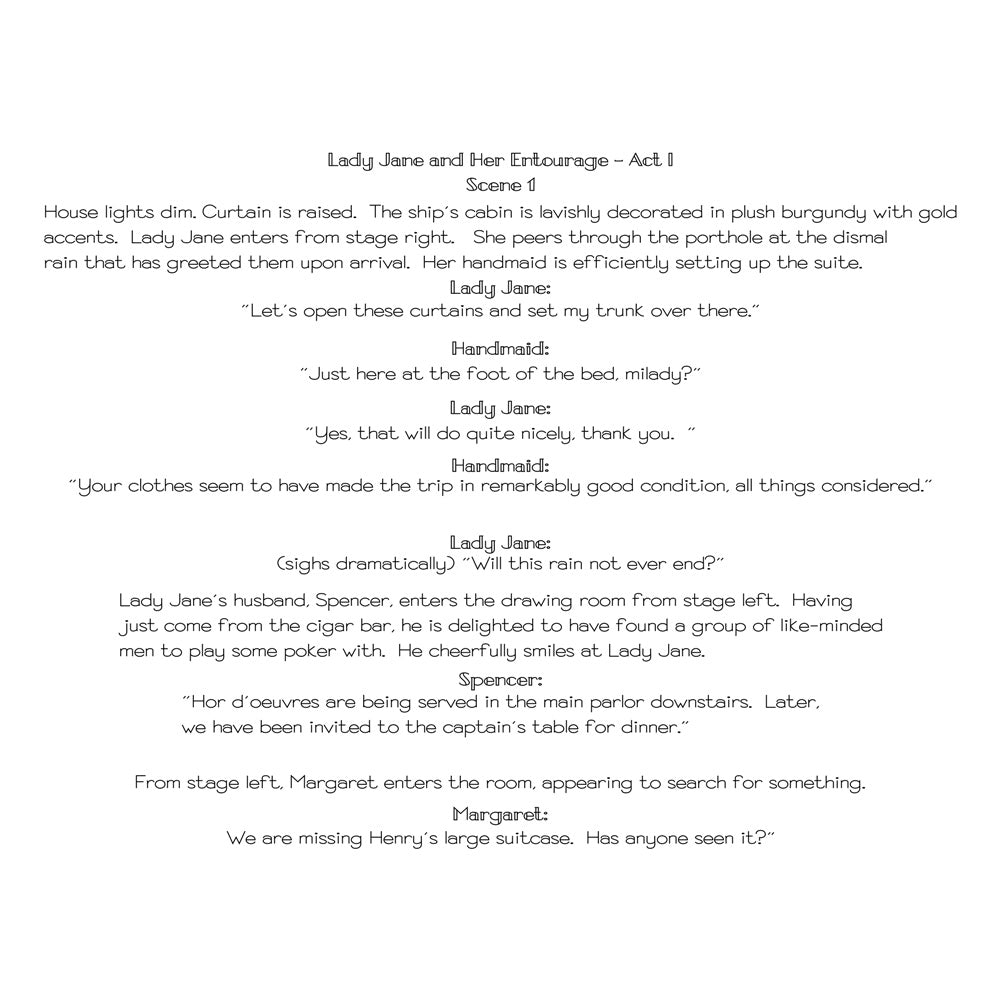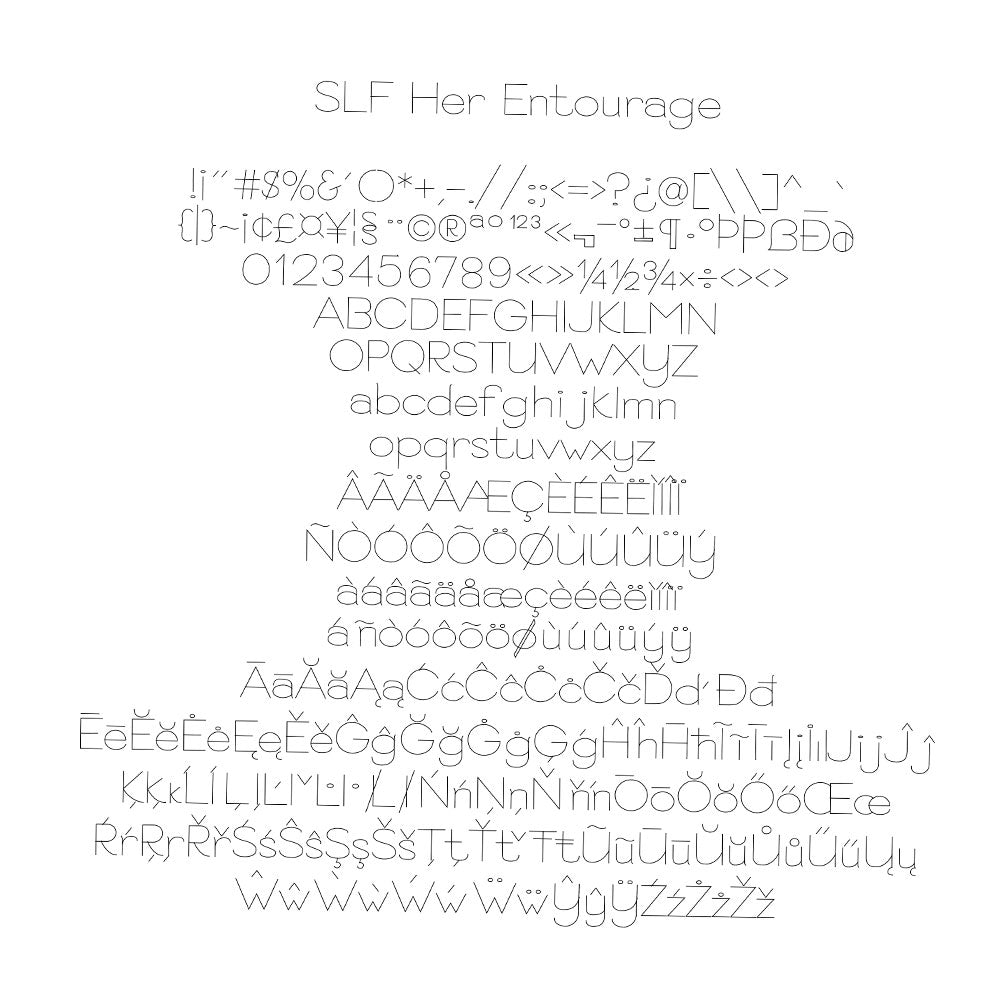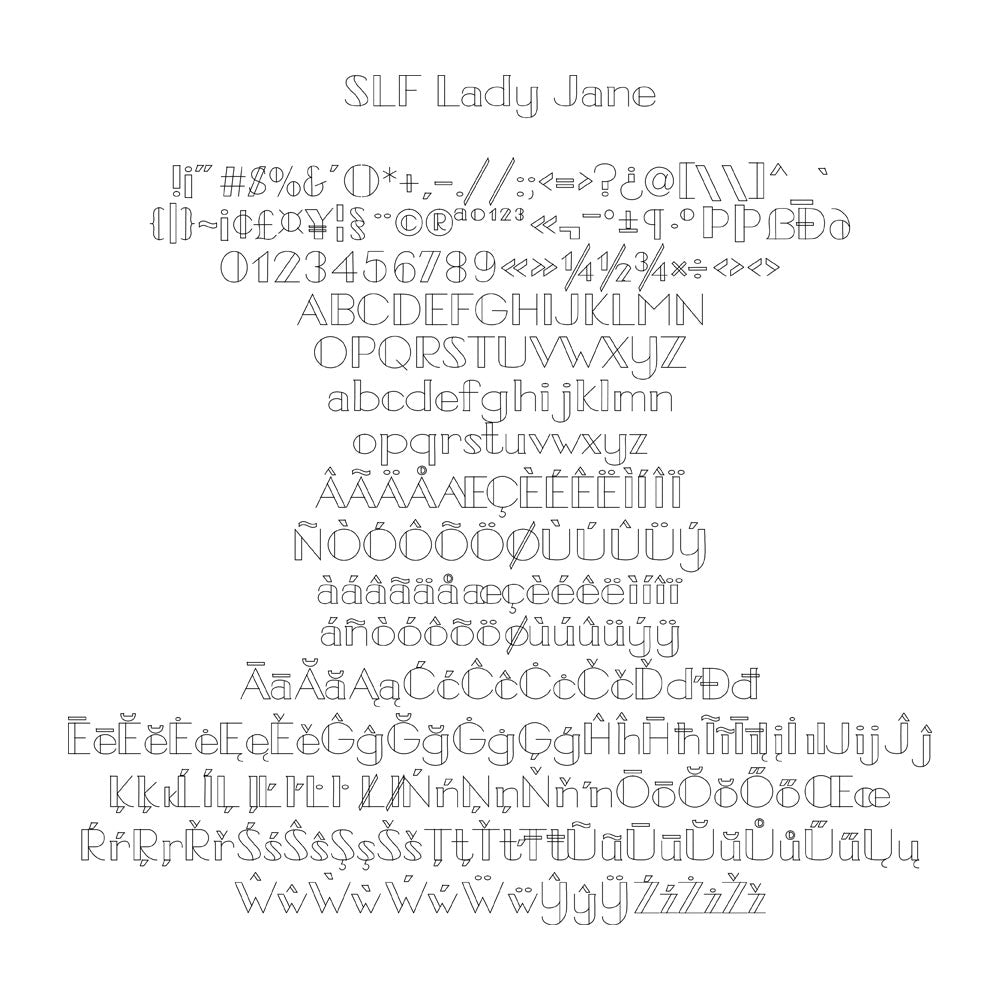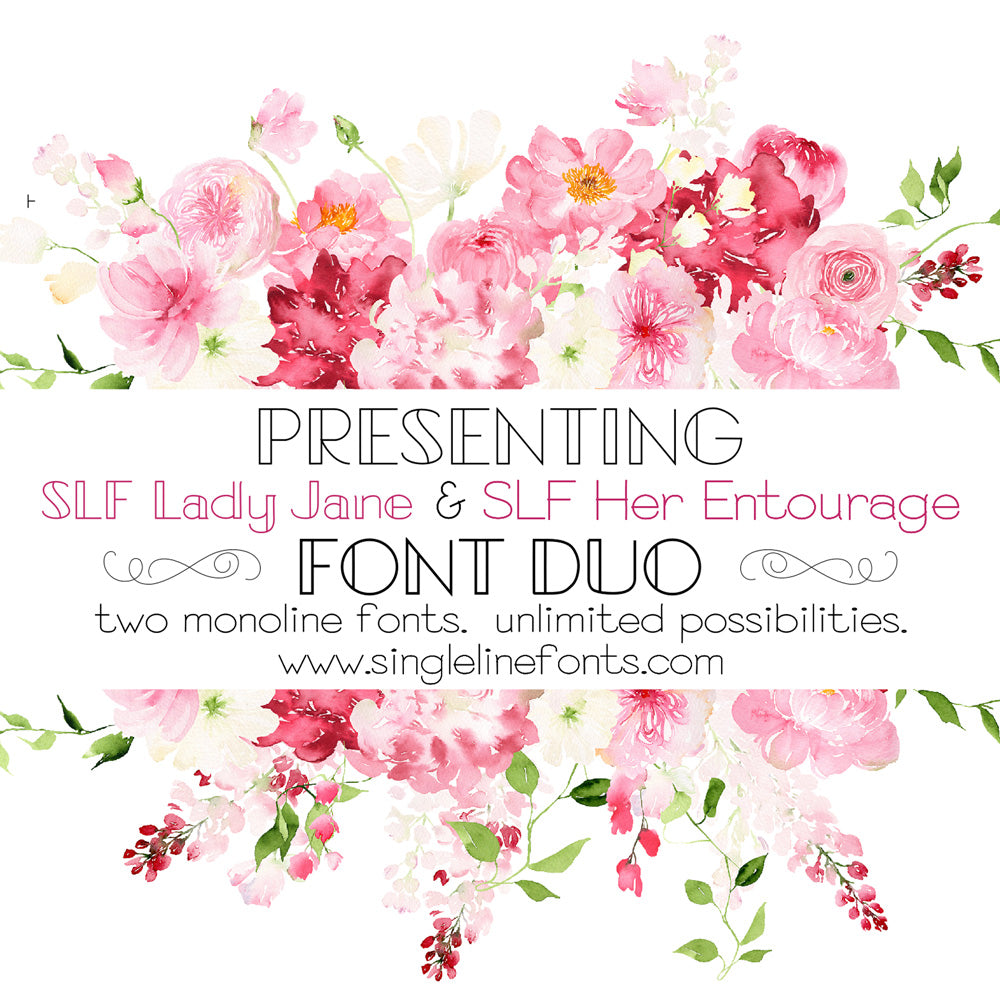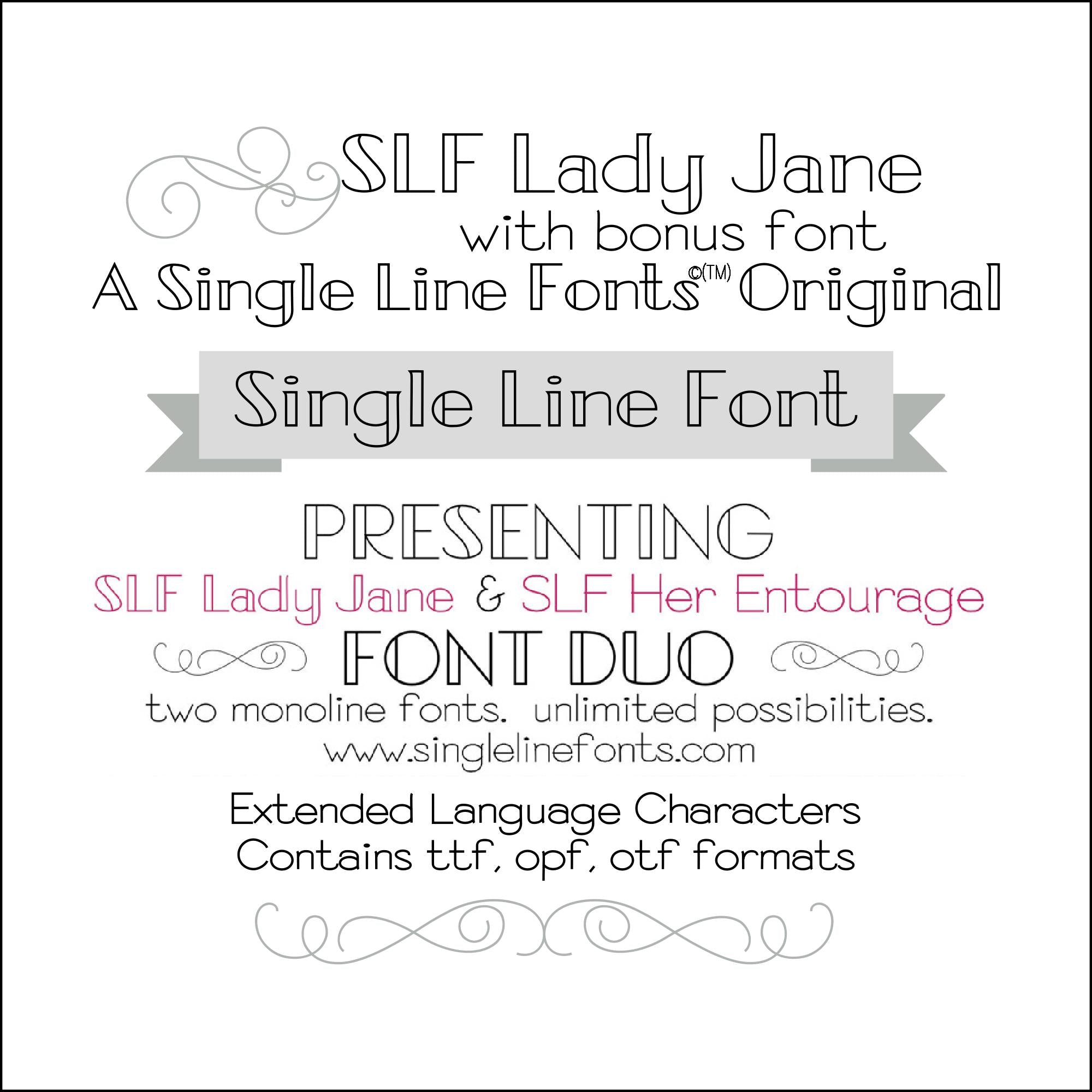
"single line font" slf lady jane and slf her entourage bonus font extended latin characters
new single line fonts SLF Lady Jane and SLF Her Entourage
slf lady jane and slf her entourage font examples
slf lady jane is a monoline font to use with glowforge, silhouette, and similar
lightburn engraving font SLF Her Entourage for cricut silhouette glowforge
Single Line Font "SLF Lady Jane" PLUS Bonus "SLF Her Entourage"
Introducing SLF Lady Jane and BONUS FREE font SLF Her Entourage – the perfect duo for your font collection! Lady Jane is ideal for headlines and making bold statements, while Her Entourage complements it perfectly for text blocks.
Ideal for use with Glowforge, foil quill, engraving, embossing, wood router work, and sketch pens (Silhouette, Cricut, Starcraft Solo, and similar), and more.